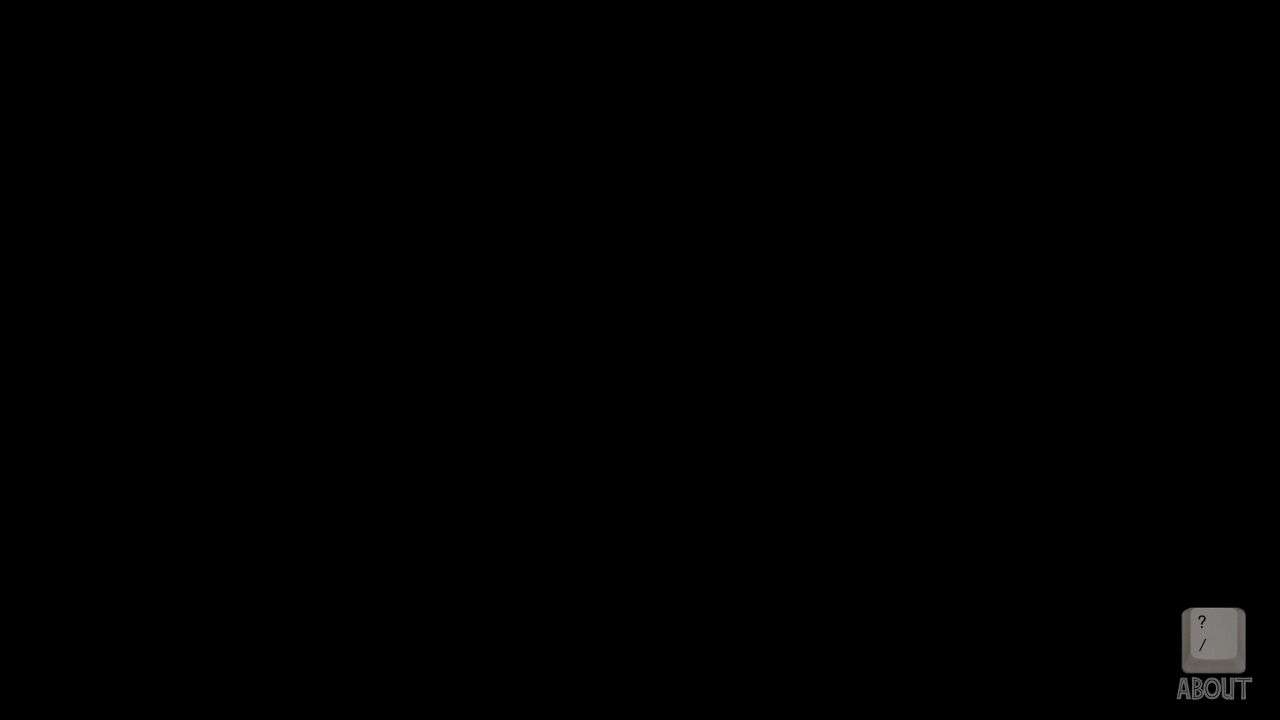
jurassicsystems.com: What fonts does Jurassicsystems use? - Arial, Helvetica, Courier New
What fonts does Jurassicsystems use?
No primary web font was detected on Jurassicsystems.com - its CSS only lists Arial, Helvetica, Courier New and Courier as fallbacks. 4 fonts detected, last checked Sep 24, 2026.
Jurassic Systems, a company dedicated to innovative technology solutions, employs a unique combination of fonts to reinforce its identity. The use of Arial and Helvetica provides a clean and approachable feel, while the inclusion of Courier New and Courier adds a touch of nostalgia and reliability. These font choices reflect the brand's commitment to both modernity and a sense of classic professionalism, appealing to a diverse audience seeking dependable tech services.
Frequently asked questions about Jurassicsystems.com's fonts
What fonts does Jurassicsystems.com use?
No primary web font was detected on Jurassicsystems.com - its CSS only lists Arial, Helvetica, Courier New and Courier as fallbacks. 4 fonts detected, last checked Sep 24, 2026.
What fonts are used on jurassicsystems.com?
Jurassic Systems uses Arial, Helvetica, Courier New, and Courier as its primary fonts. Arial and Helvetica are standard choices, while Courier New and Courier add a unique touch.
Where can I find the fonts used on jurassicsystems.com?
How does Arial compare to Helvetica on jurassicsystems.com?
Both Arial and Helvetica are sans-serif fonts, but Helvetica is often regarded for its refined design. Jurassic Systems utilizes both to create a balanced visual identity.
What styles and weights are used for the fonts on jurassicsystems.com?
The site primarily uses the 400 weight for all fonts, providing a consistent and legible appearance across its content, enhancing readability for users.